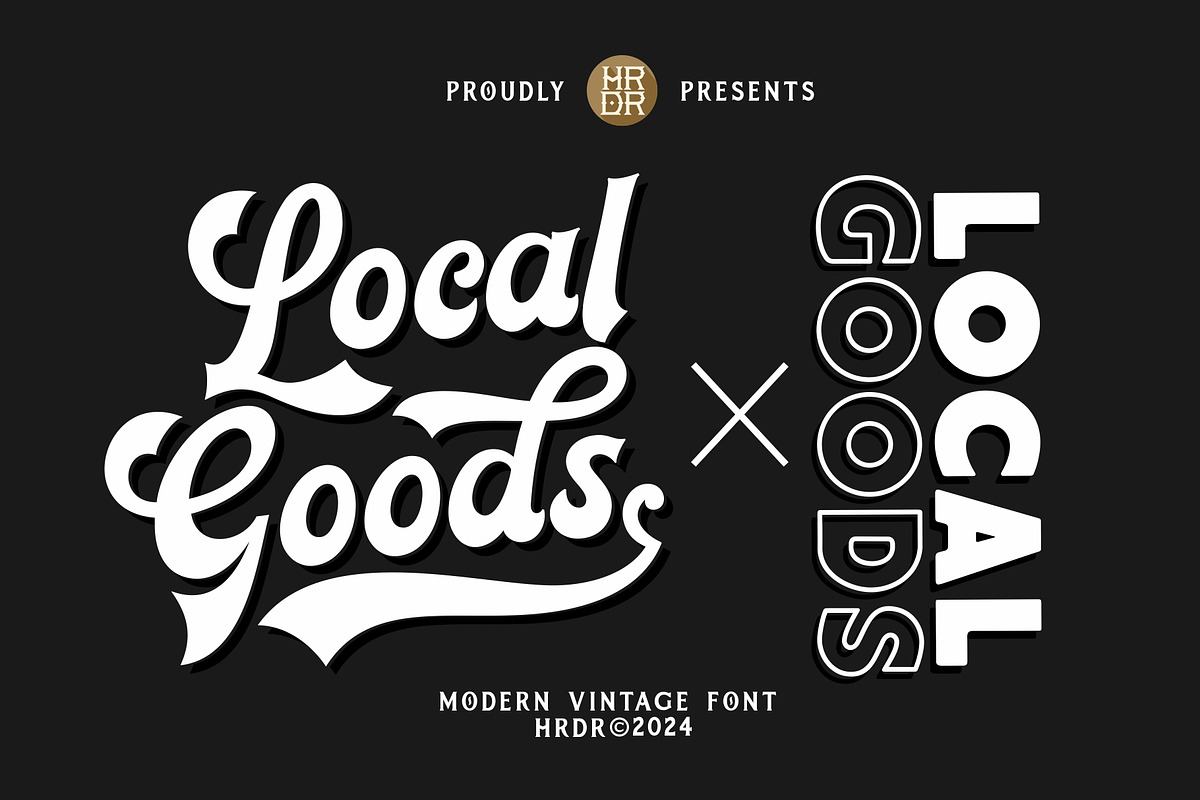
Please note, to use this font for commercial purposes, you must purchase the full version. Local Goods is a charming and rustic font designed to evoke a sense of warmth and authenticity. Perfect for logos, branding, packaging, and other creative projects, this font brings a handcrafted, down-to-earth feel to your designs. Whether you're working on a local business brand, an artisanal product, or a community-focused project, Local Goods adds personality and character to your work. Test it out and enjoy free download access for personal use. Experience the handmade style of Local Goods Font Free Download before purchasing the commercial license. Add a personal, rustic touch to your designs with Local Goods.